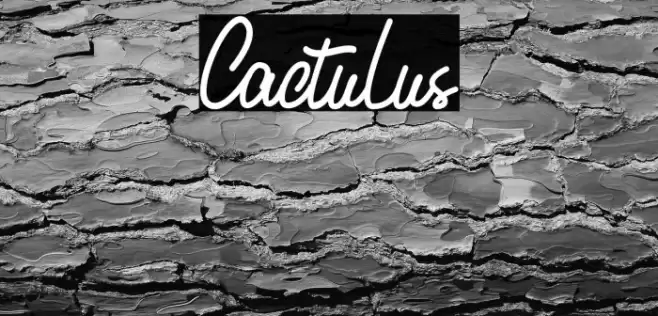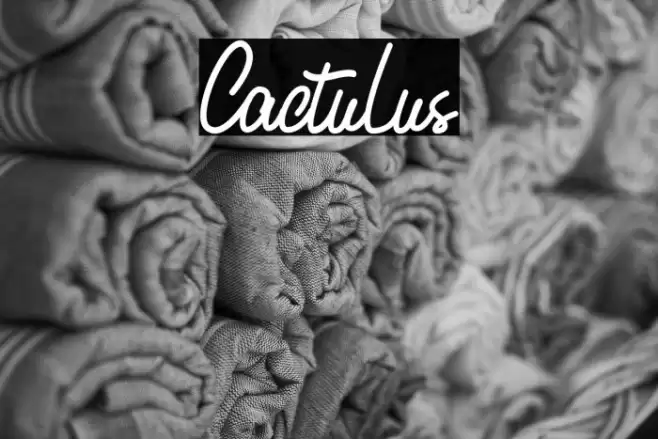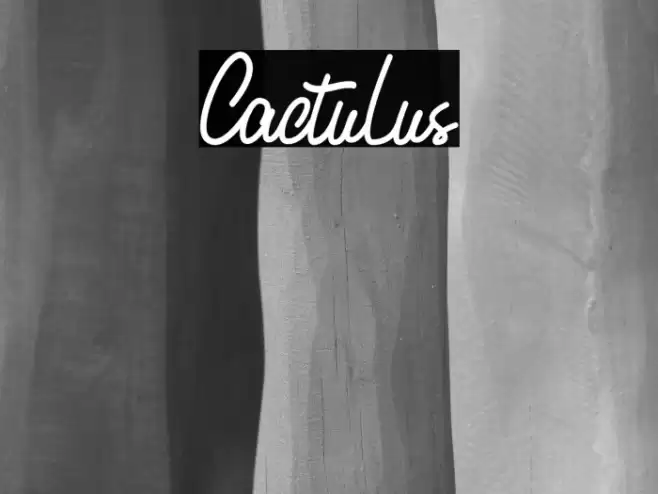
Cactulus Font
Cactulus Description
This font exudes a lively and dynamic character with its cursive, handwritten style. The letters are fluid and connected, giving a sense of movement and elegance. The uppercase letters are bold and slightly slanted, while the lowercase letters maintain a consistent flow, enhancing readability. The strokes are smooth and rounded, with a medium contrast that adds to its legibility. This font is perfect for projects that require a personal touch or a creative flair, such as invitations, greeting cards, or artistic branding.
A lively, cursive handwritten font with smooth, connected letters from Regular fonts.
- Proposed Projects: Ideal for invitations, greeting cards, artistic branding, and creative projects.
- Use Case: Logos, Headlines, Artistic projects